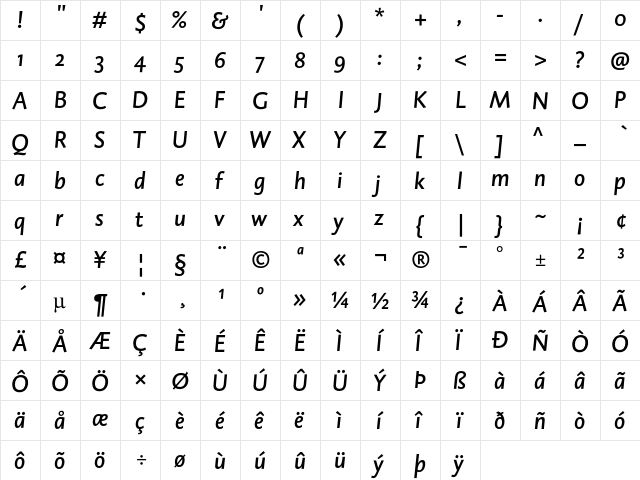
DTLCaspariST MediumItalic Font Preview
DTLCaspariST MediumItalic
DTLCaspariST MediumItalic Font Details
Design Context for DTLCaspariST Typeface
DTLCaspariST offers clean, dependable letterforms without strong stylistic allegiance, making it a practical choice for designers who need flexibility. Its italic angle brings a sense of urgency and motion to the letterforms.
Pro Tip: Try DTLCaspariST for annotation and caption copy alongside an upright companion — the contrast in angle creates a dynamic but ordered typographic system.